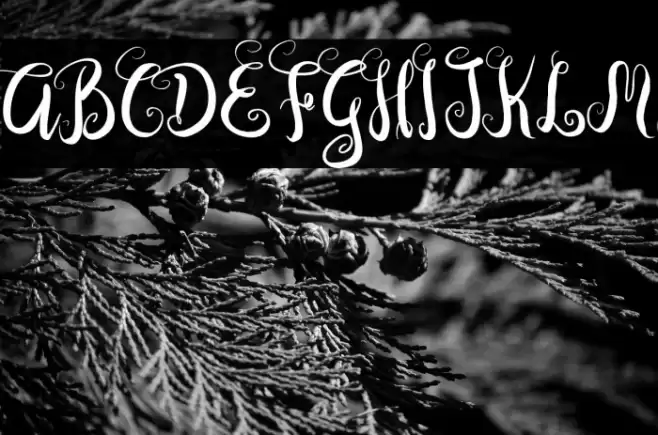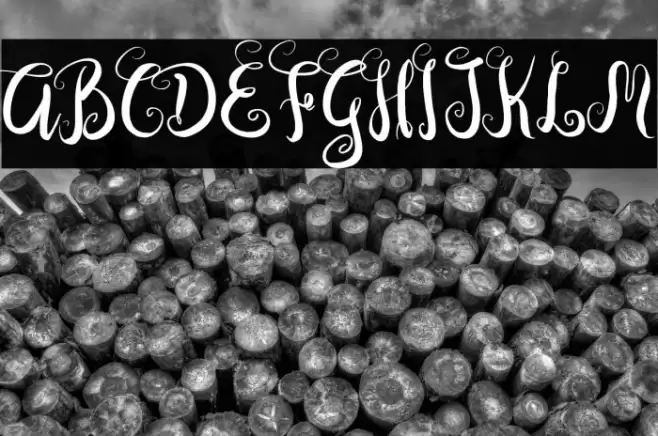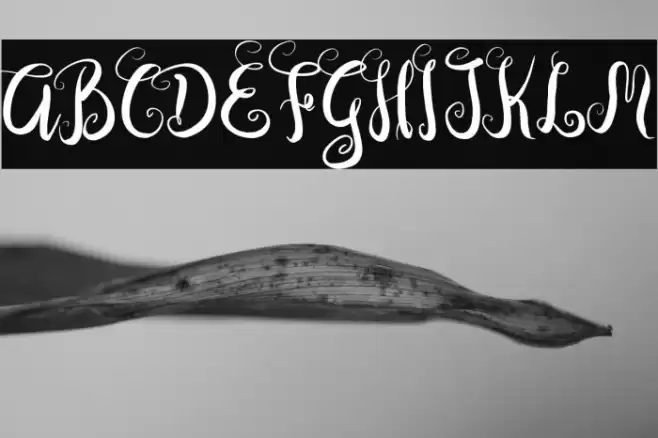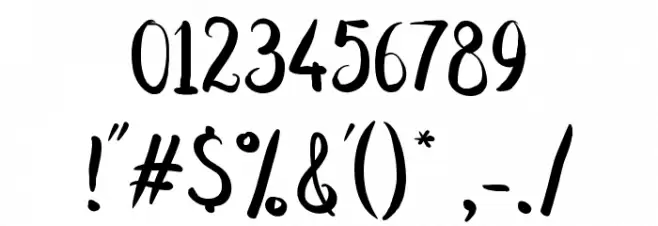
DastanScript Font
DastanScript Description
This font features a whimsical and decorative script style, characterized by elegant swirls and flourishes that give it a playful yet sophisticated appearance. The uppercase letters are particularly ornate, with intricate loops and curves that add a touch of elegance. The lowercase letters maintain a more straightforward script style, providing a nice balance to the overall design. The numerals and special characters are consistent with the font's decorative theme, ensuring a cohesive look across all text elements. This font is ideal for projects that require a touch of elegance and creativity, such as invitations, greeting cards, and branding materials.
A whimsical and decorative script font with elegant swirls and flourishes from Uncategorized fonts.
- Font: DastanScript